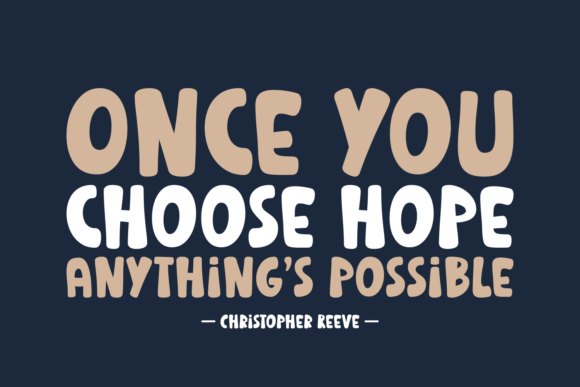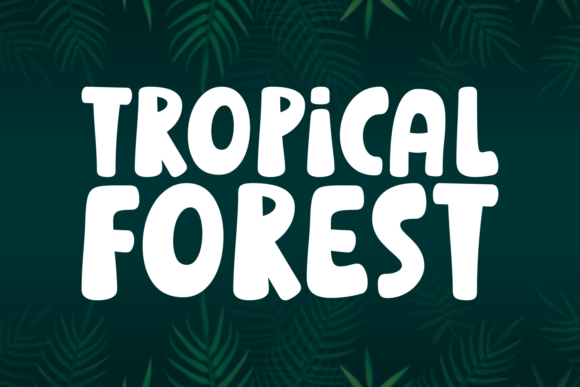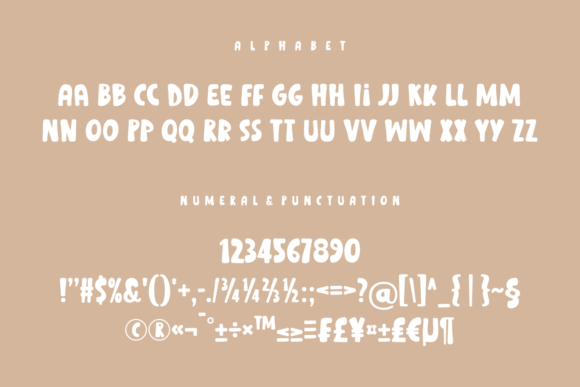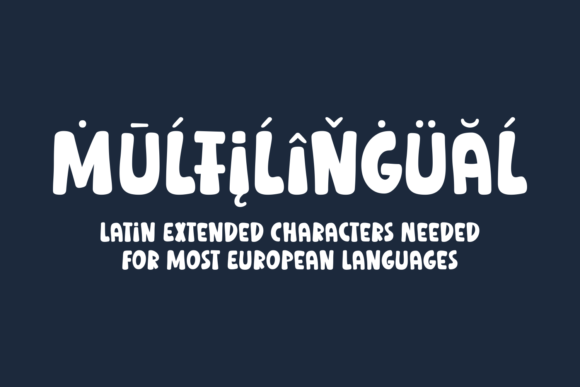
Introducing Choose Hope Font: The Whimsical Display Font You Need
Are you a designer, crafty DIY enthusiast, or simply someone who loves to dabble in creative projects? If so, you’re in luck! We’re excited to introduce you to the Choose Hope font, a whimsical and fun display font that’s sure to become a staple in your font library. With its unique charm and versatility, Choose Hope has the potential to elevate any creation, regardless of the topic or project.
A Font that’s Full of Hope and Whimsy
Choose Hope is a display font that’s designed to bring a touch of playfulness and optimism to your designs. Its whimsical nature makes it perfect for projects that require a bit of personality and flair. Whether you’re working on a branding project, a craft tutorial, or simply a fun DIY endeavor, Choose Hope is the perfect companion.
What Makes Choose Hope So Special?
So, what sets Choose Hope apart from other fonts? Here are just a few reasons why this font is an incredible asset to your font library:
• Unique Character: Choose Hope has a distinct personality that’s both fun and uplifting. Its quirky charm is sure to capture the attention of your audience and leave a lasting impression.
• Versatility: This font is incredibly versatile and can be used on a wide range of projects, from bold headlines to whimsical illustrations.
• Easy to Read: Despite its playful nature, Choose Hope is surprisingly easy to read, making it perfect for titles, headings, and short paragraphs.
• Scalable: Whether you’re working on a small project or a large-scale design, Choose Hope remains clear and legible, ensuring that your message always gets across.
Choose Hope is a font that’s specifically designed with designers and crafters in mind. Here are just a few ways you can use this amazing font:
• Branding and Logos: Use Choose Hope to create eye-catching logos, business cards, and branding materials that showcase your personality and style.
• Craft Tutorials: Add a touch of whimsy to your craft tutorials, patterns, and instructions with Choose Hope’s playful font.
• Social Media Graphics: Elevate your social media graphics with Choose Hope’s bold and colorful font, perfect for creating engaging posts and stories.
• DIY Projects: Use Choose Hope to add a personal touch to your DIY projects, such as signs, labels, and decorations.
• Experiment with Different Sizes: Play around with different font sizes to see how Choose Hope looks in various contexts.
• Pair with Other Fonts: Try pairing Choose Hope with other fonts to create interesting and dynamic typography.
In conclusion, Choose Hope is a whimsical and fun display font that’s sure to become a favorite in your font library. With its unique character, versatility, and ease of use, this font is perfect for designers, crafters, and anyone looking to add a touch of personality to their projects. So why wait? Download Choose Hope today and start elevating your creations with this amazing font!